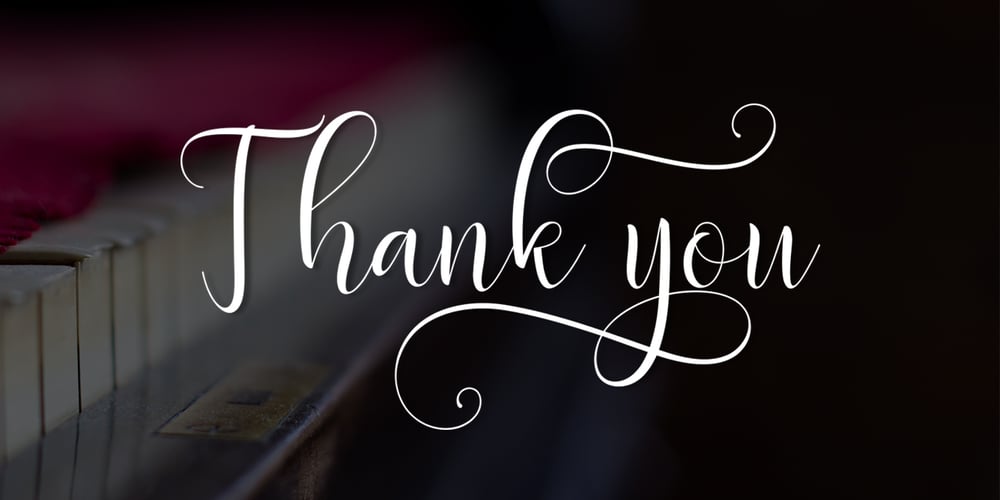
Delany Script Font Family was designed by Amar Lettering and published by Amarlettering. Delany Script contains 1 styles and family package options. Delany Script a new fresh & modern script with a handmade calligraphy style, decorative characters and a dancing baseline! So beautiful on invitation like greeting cards, branding materials, business cards, quotes, posters, and more!! Delany Script come with 423 glyphs. The alternative characters were divided into several Open Type features such as Swash, Stylistic Sets, Stylistic Alternates, Contextual Alternates. The Open Type features can be accessed by using Open Type savvy programs such as Adobe Illustrator, Adobe InDesign, Adobe Photoshop Corel Draw X version, And Microsoft Word. And this Font has given PUA unicode (specially coded fonts). so that all the alternate characters can easily be accessed in full by a craftsman or designer. If you have any question, don’t hesitate to contact me by email amarlettering@gmail.com Thanks and happy designing ๐ Thank You for purchase!